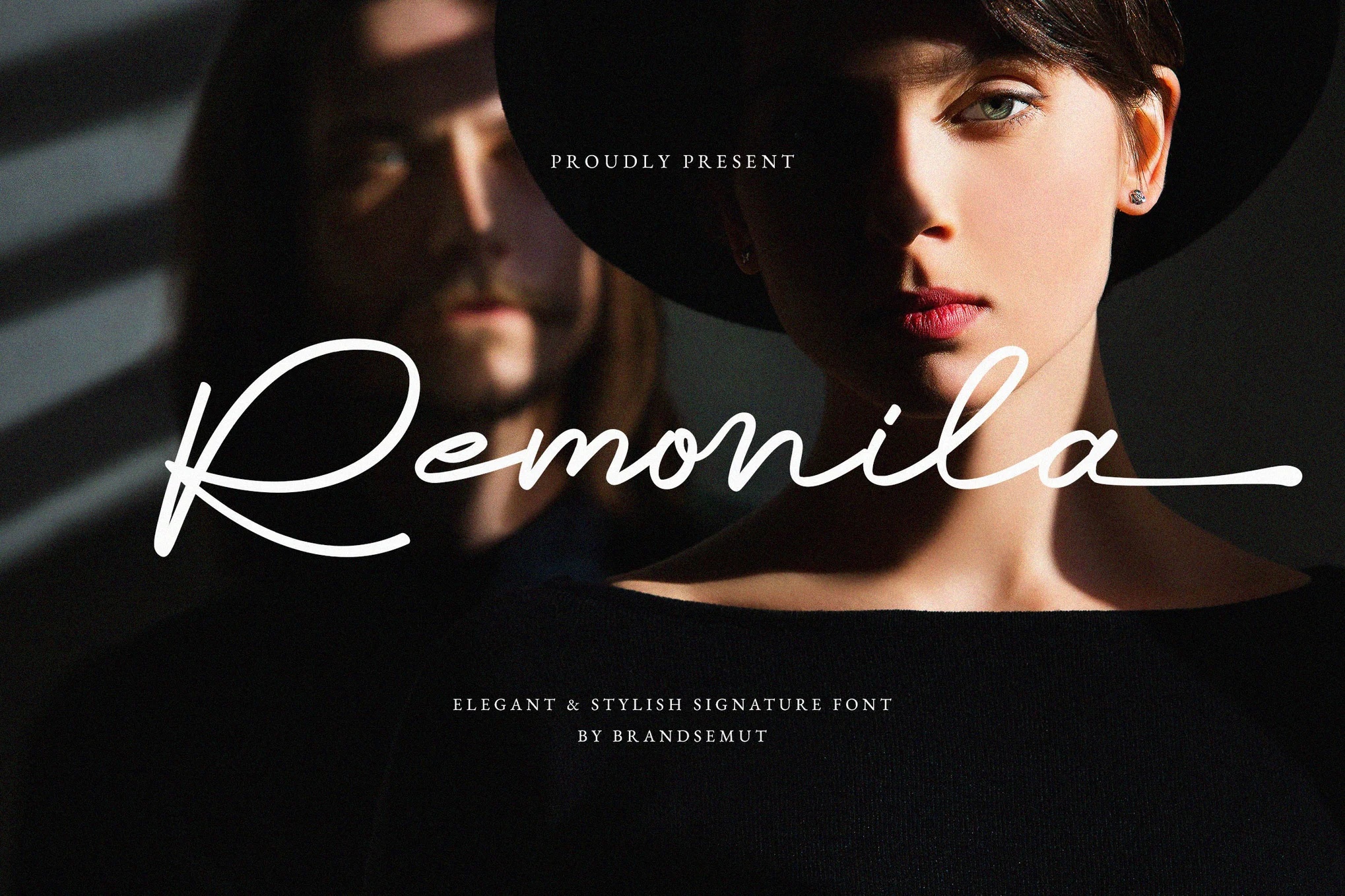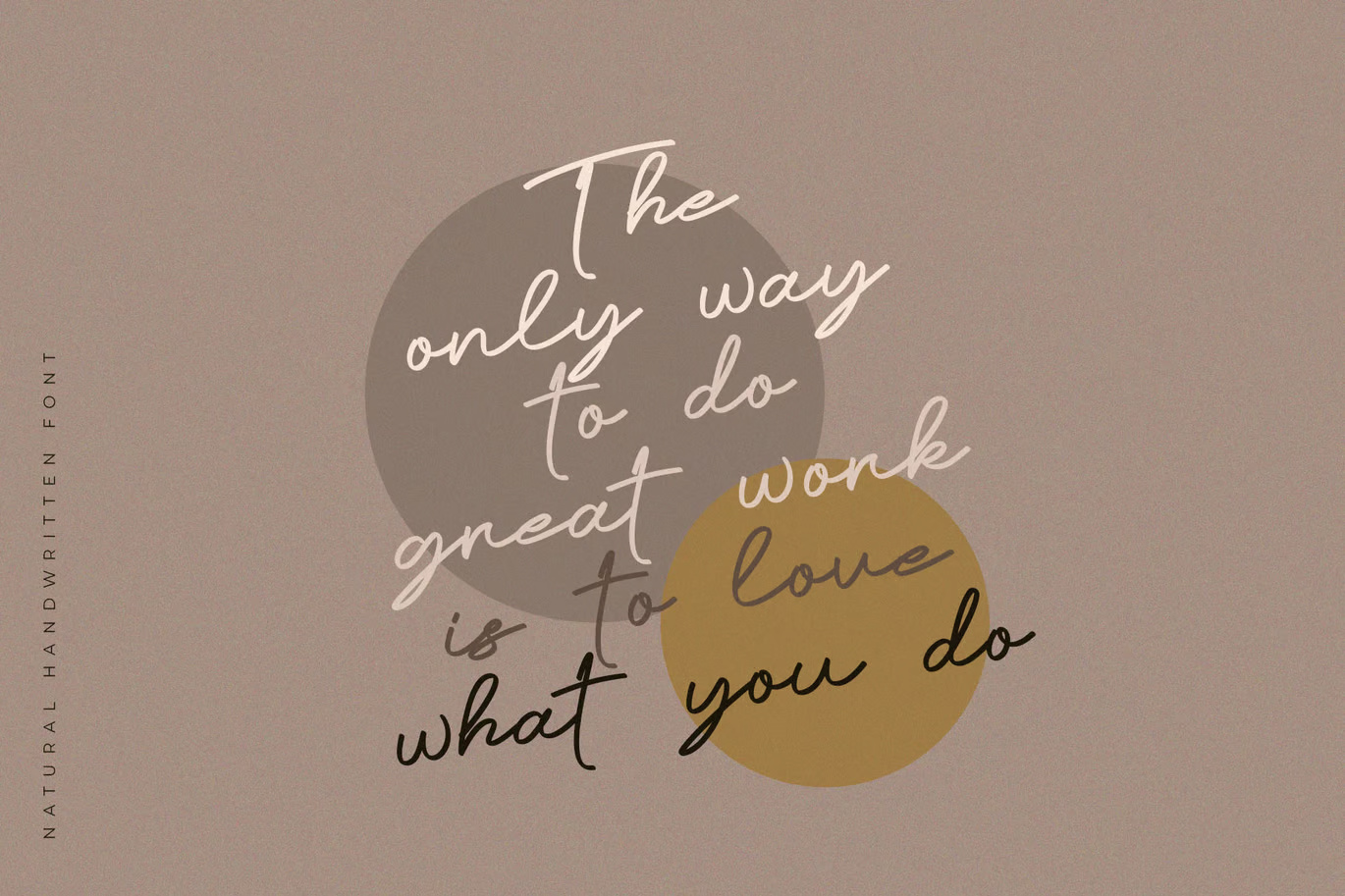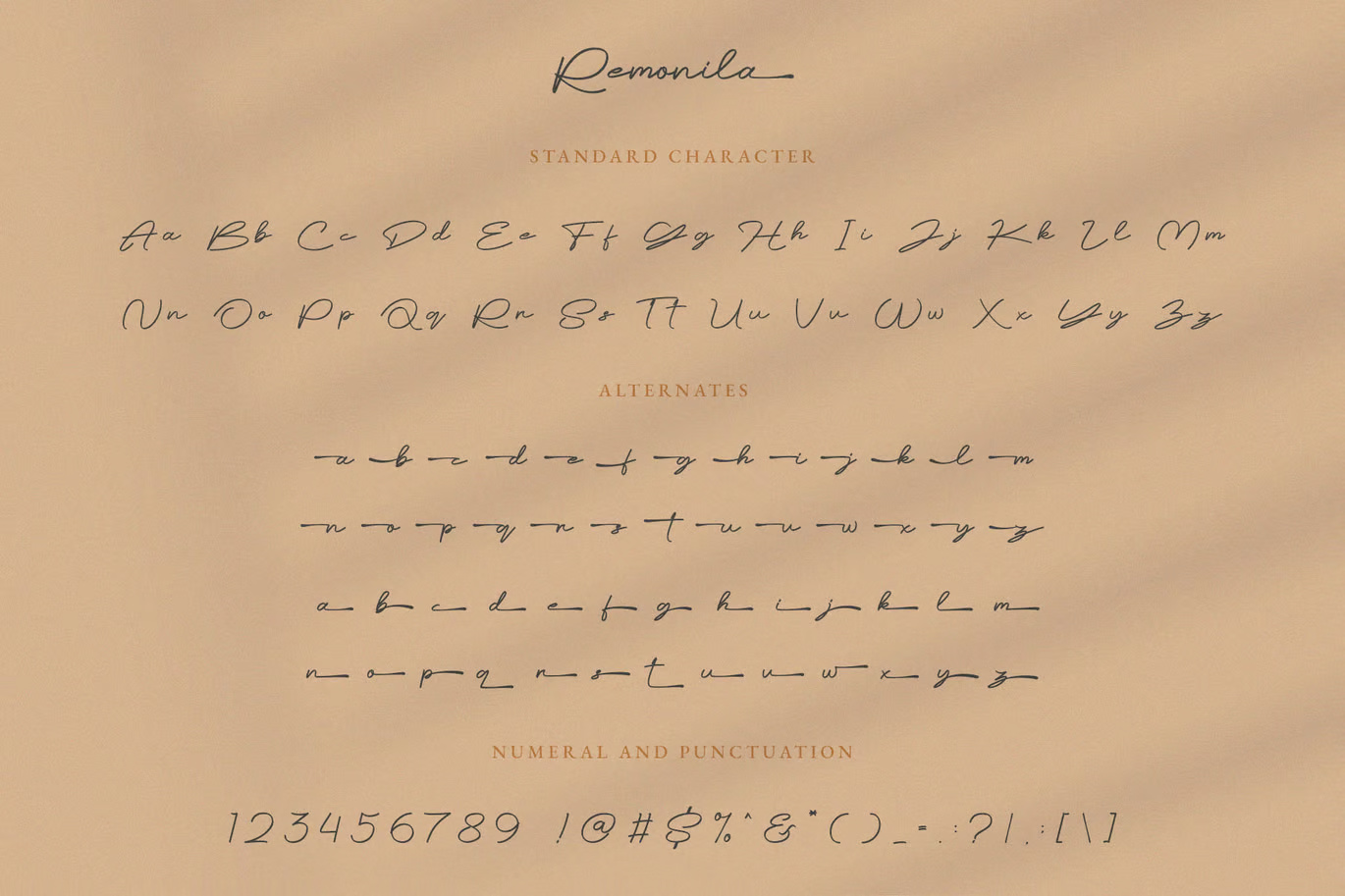
Remonila Elegant Handwritten Font
Introducing the New Remonila Signature Font – an elegant and stylish handwritten script that brings a touch of sophistication and personality to any design. Carefully crafted to emulate the natural flow and charm of authentic handwriting, Remonila is perfect for branding, logos, invitations, social media graphics, product packaging, and more.
This font includes a full set of uppercase and lowercase letters, numerals, punctuation, and supports multiple languages, ensuring versatility and creative freedom in your projects. With its smooth curves and refined details, Remonila delivers a modern yet timeless look, ideal for both professional and personal design needs.
Remonila Elegant Handwritten Script Font